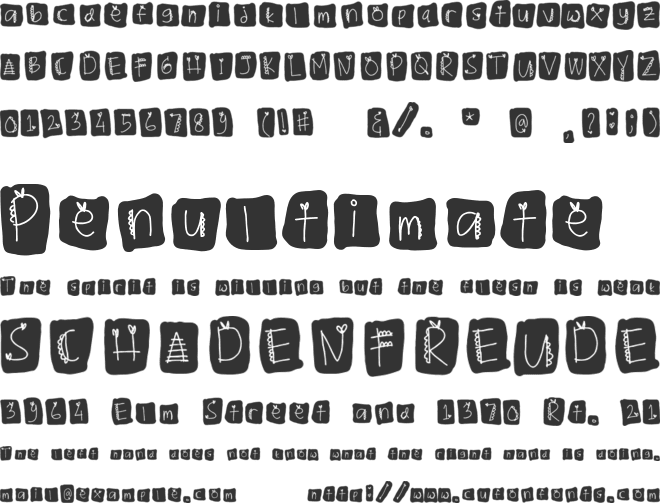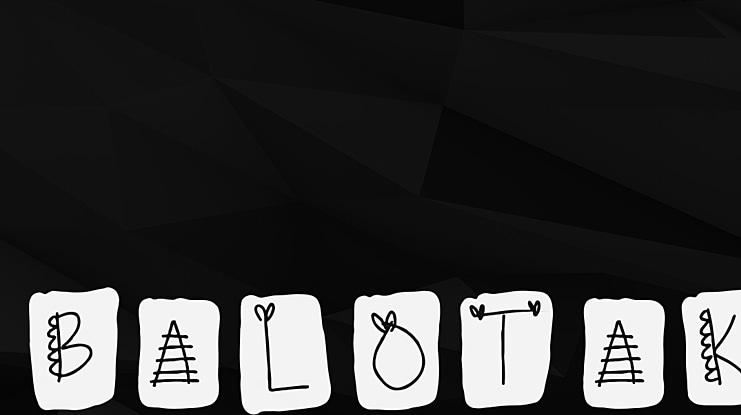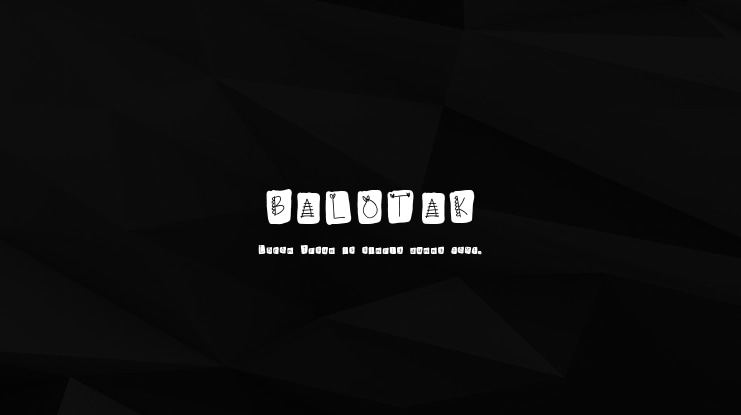
BALOTAK Font
Balotak is a unique display font. It features an original and outstanding look that will look amazing in your upcoming projects! Get inspired by Balotak and take your projects to the next level!